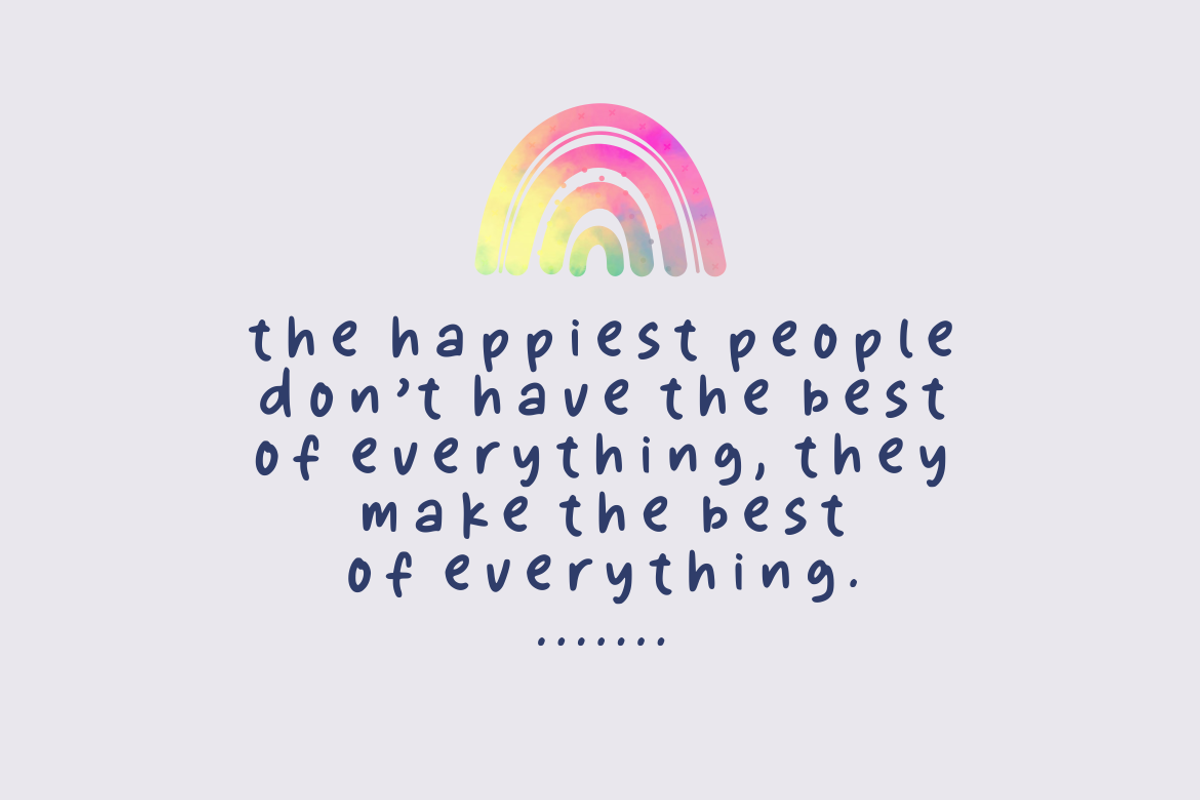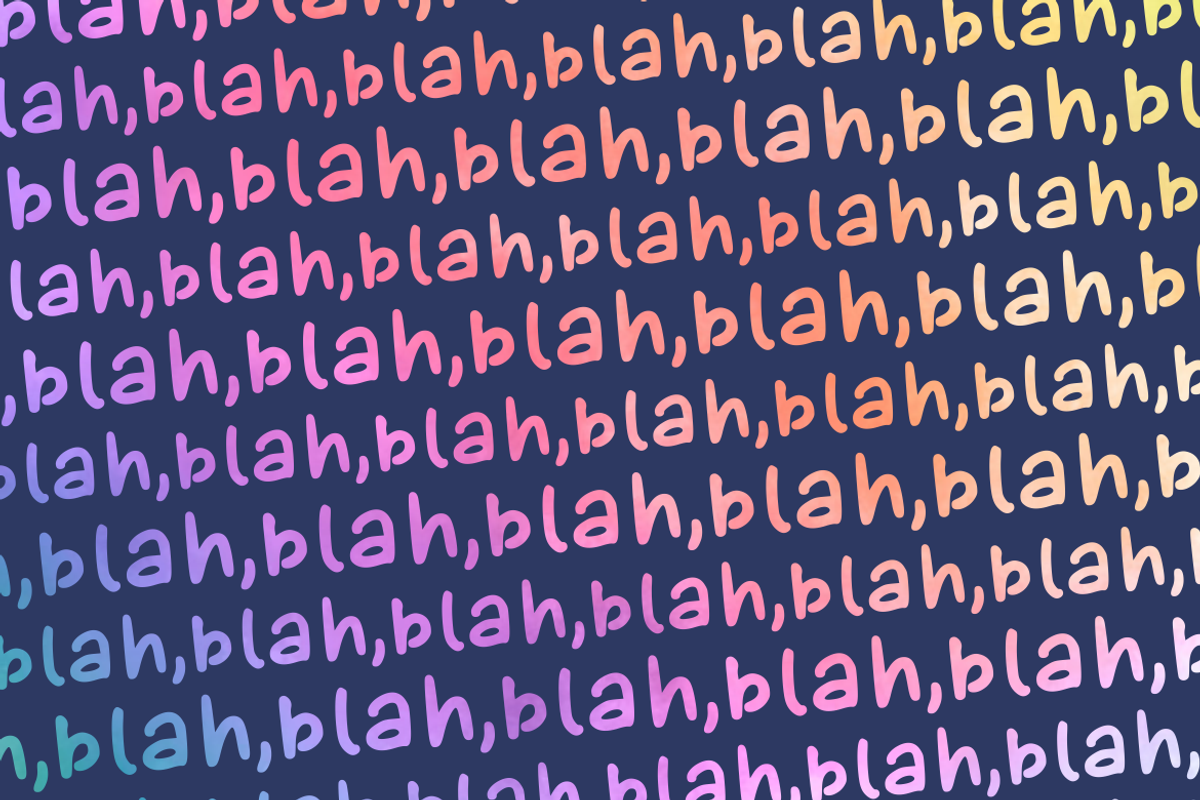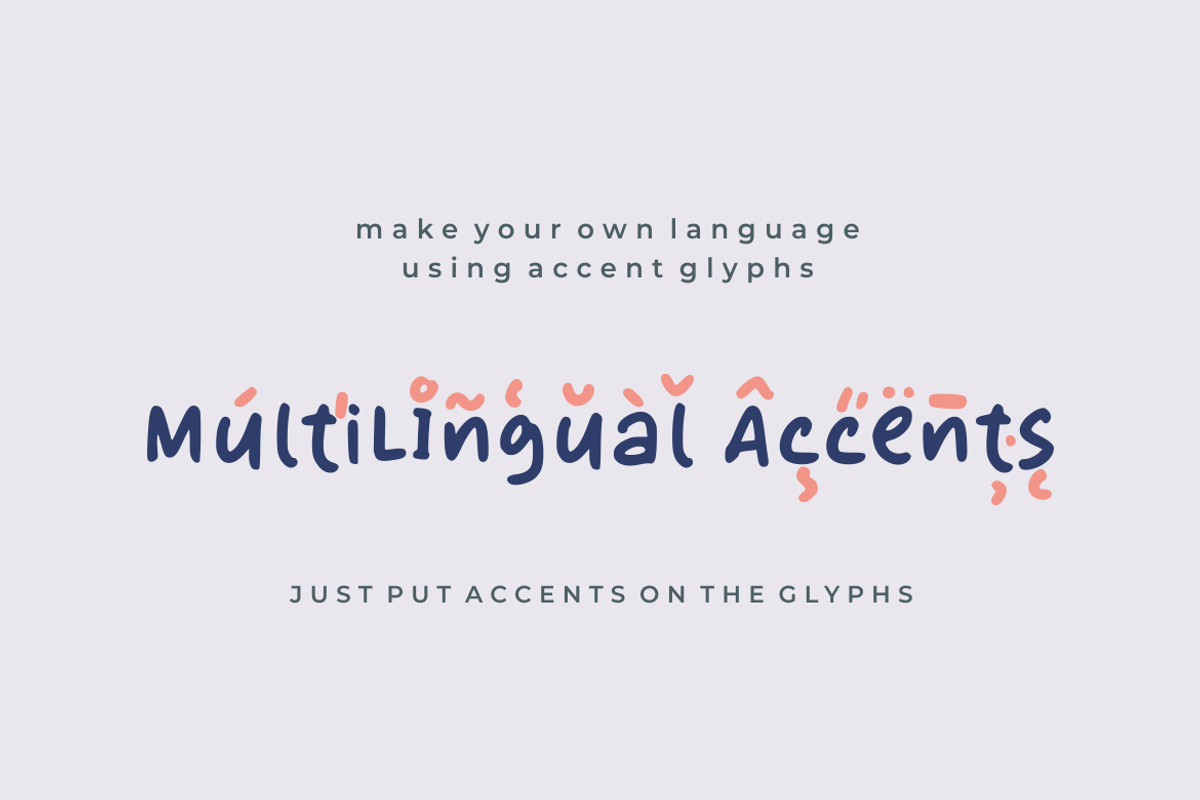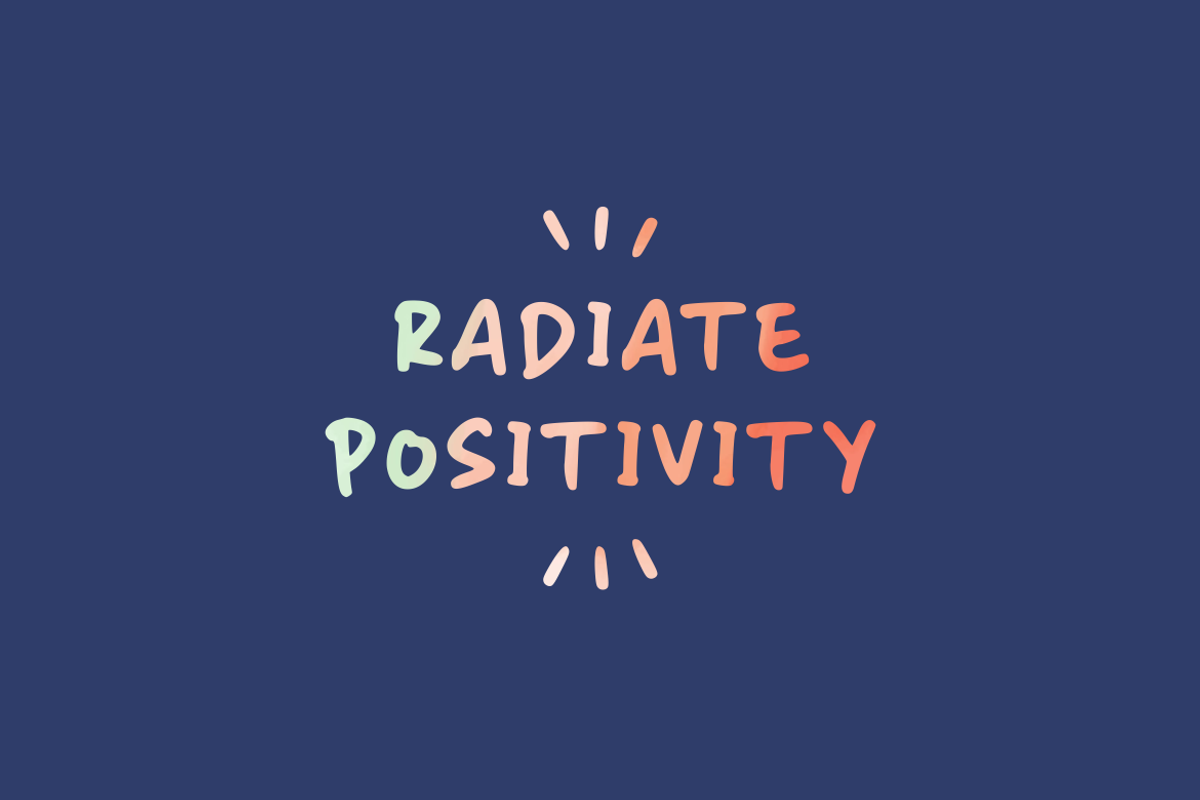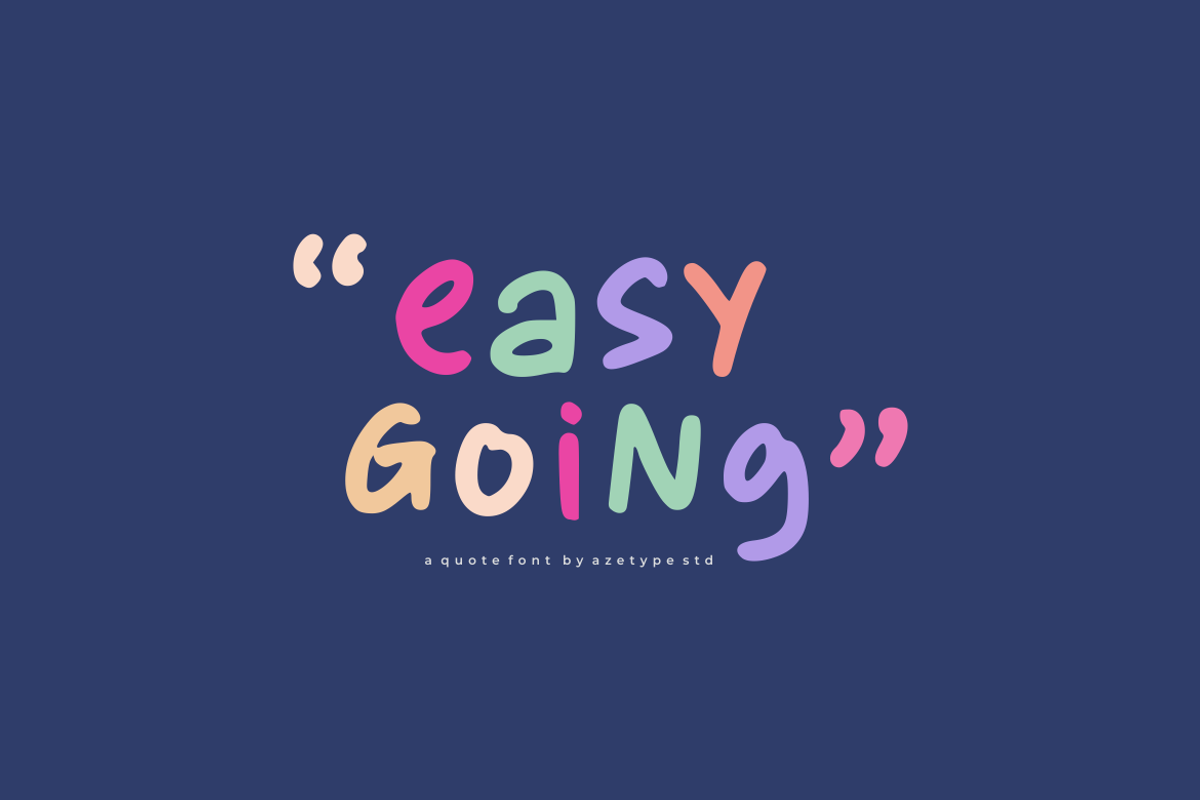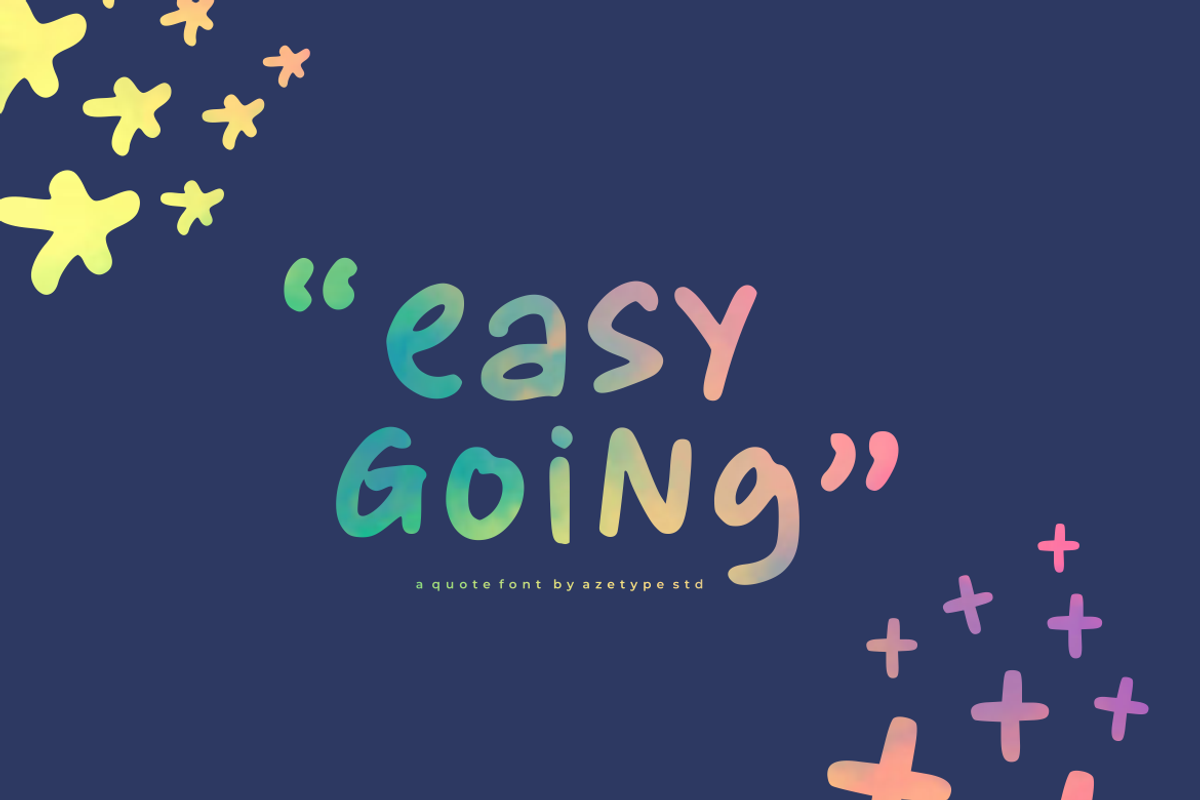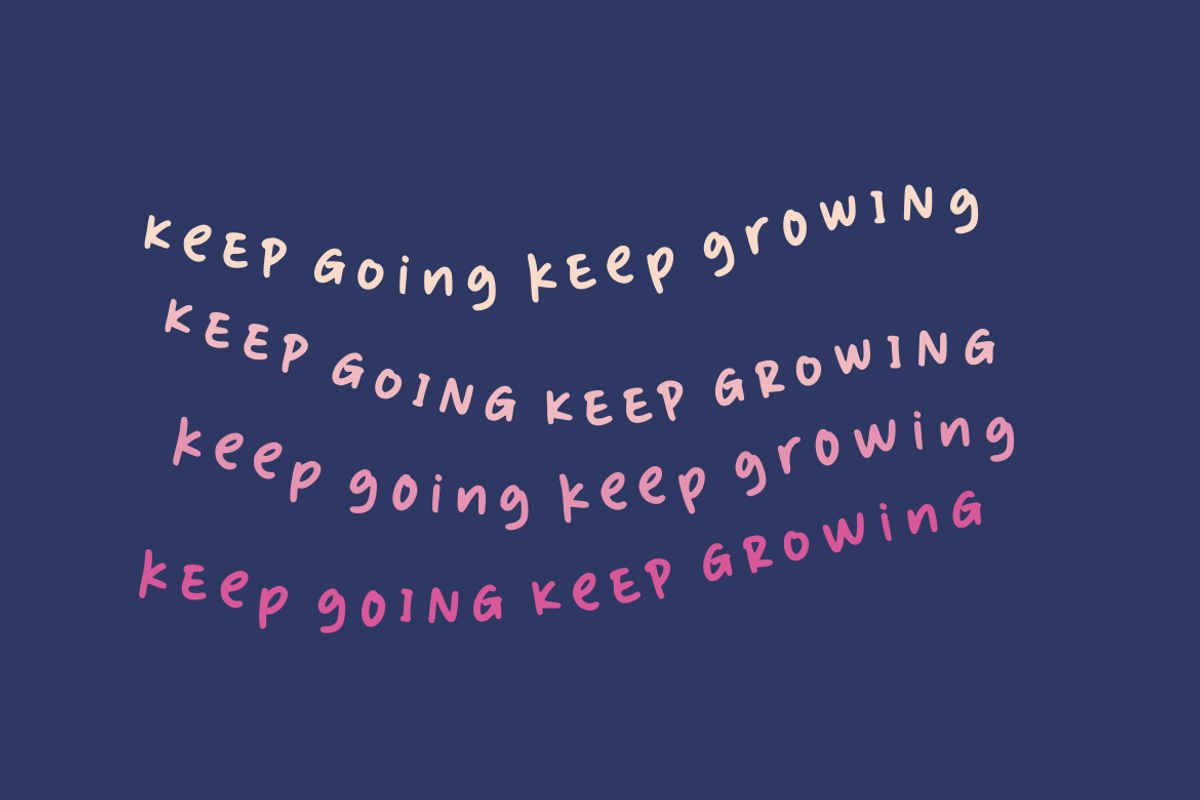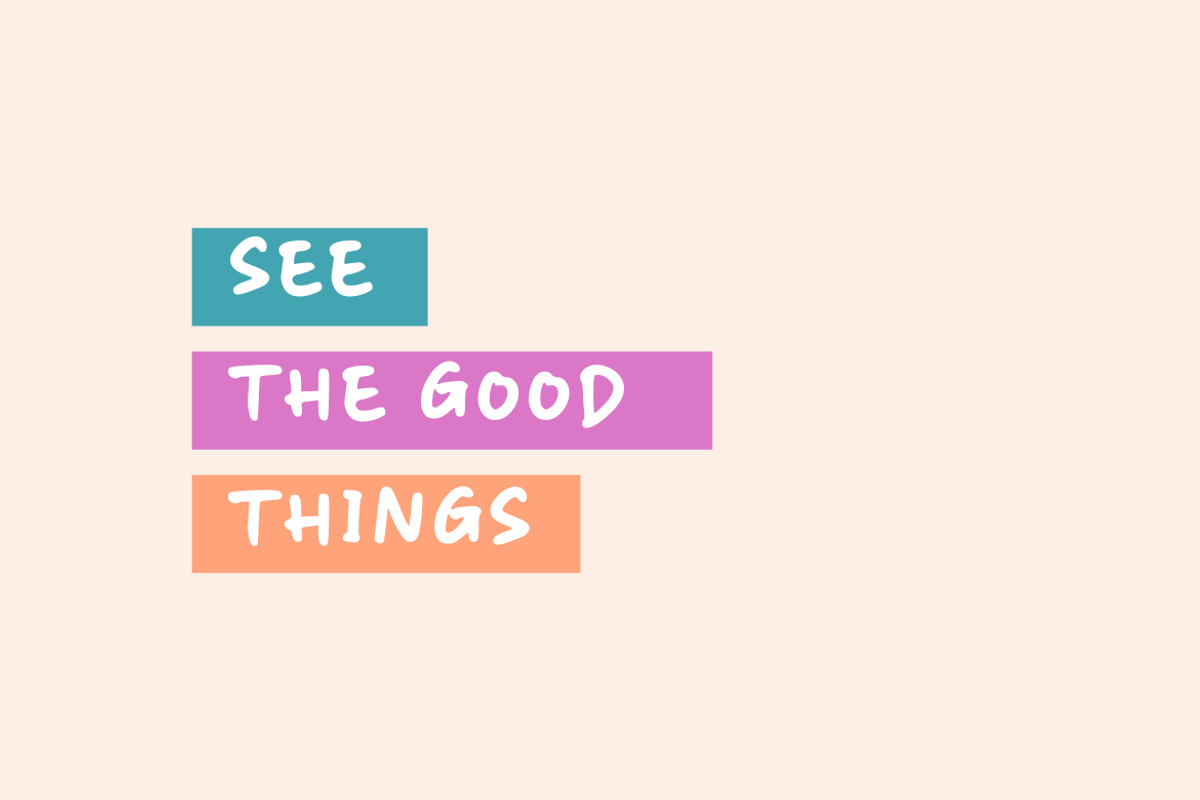
Easy Going • A Quote Font
Presenting Easy Going! A Quote Font with simple characters. This font made with the perfect combination of each character. You can type by Mix & Match Lowercases and Uppercases to get a unique combination. It looks original and can be used for all your project needs. Each glyph has its own uniqueness and when meeting with others will provide dynamic and pleasing proximity. This font can be used at any time and on any project.
So, Easy Going Font can't wait to give its touch to all your design projects such as quotes, poster design, promotional materials, or just overlay on your pictures..
Easy Going Font comes with uppercase, lowercase, numeral, punctuation, symbols, and Multilingual Accent Glyphs.